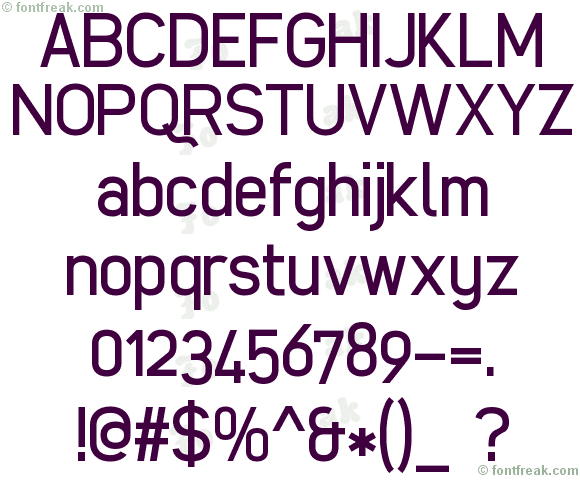
cibreo
About cibreo
Cibreo is a striking sans-serif font crafted by the innovative kmzero font foundry. Released in 2006, this font is available for free download under a freeware license, making it an accessible choice for a variety of design projects. The Cibreo font features clean lines and a modern aesthetic, characterized by its balanced stroke weight and minimal contrast. The letterforms exhibit a slightly condensed appearance, enhancing readability while maintaining a contemporary feel. The spacing between characters is thoughtfully designed, allowing for excellent legibility even at smaller sizes.
This versatile typeface is ideal for a range of applications. Its sleek style makes it a perfect choice for restaurant menus, where clarity and elegance are paramount. Cibreo can also shine in wedding invitations, providing a refined touch to a special day. Additionally, it works well in movie posters, where bold headlines are essential for capturing attention. Graphic designers and content creators will find this font effective in crafting eye-catching social media graphics, ensuring that their messages stand out in a crowded digital landscape. Small business owners can utilize Cibreo for branding materials, including logos and promotional items, to convey a modern and professional image.
The target audience for Cibreo includes graphic designers, small business owners, and content creators seeking a fresh, contemporary typeface that enhances their projects. What sets Cibreo apart is its perfect blend of modernity and versatility, making it suitable for both formal and informal contexts. The clean yet distinctive character of this font elevates any design, ensuring that it resonates with the intended audience. Whether you are looking to create a memorable invitation or a striking advertisement, the Cibreo font free download offers an excellent opportunity to enhance your creative endeavors with style and sophistication.